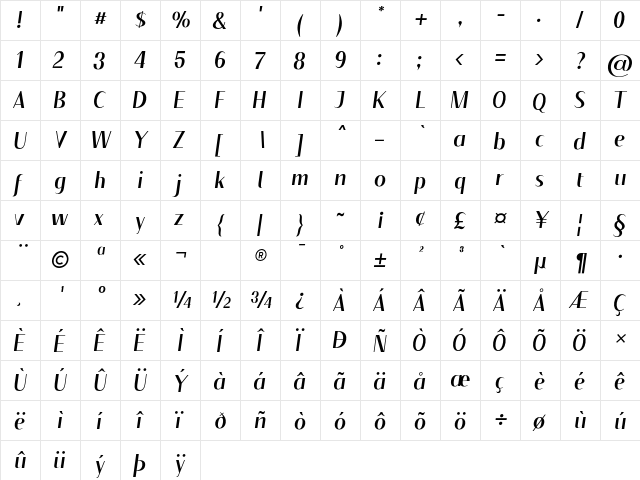
Floane Regular Italic
Design Context for Floane Typeface
Floane offers clean, dependable letterforms without strong stylistic allegiance, making it a practical choice for designers who need flexibility. The slanted form adds forward momentum and visual energy.
Pro Tip: Try Floane for annotation and caption copy alongside an upright companion — the contrast in angle creates a dynamic but ordered typographic system.